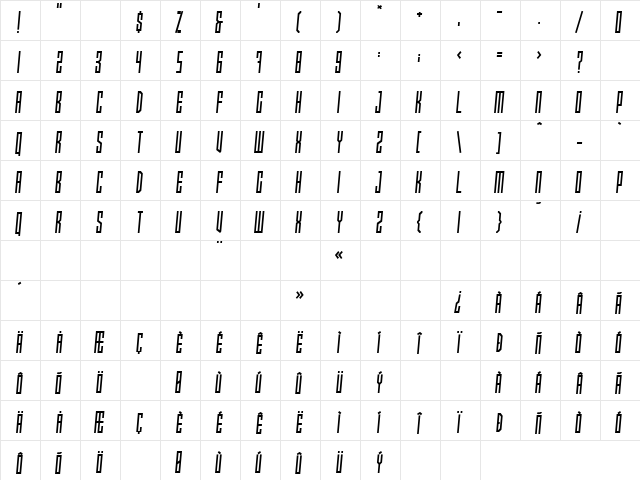
Complete Xray Ted [skew] Regular glyph index. Displaying only characters natively supported by Xray Ted [skew] Regular font.
Xray Ted [skew] is a composed and adaptable typeface that performs quietly and consistently across a wide range of design contexts.